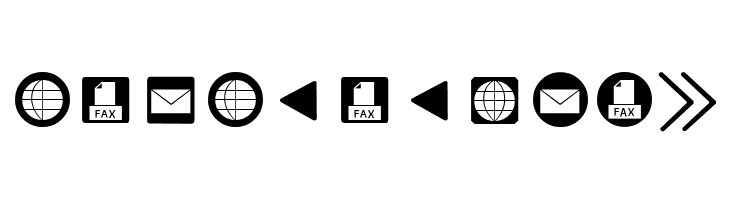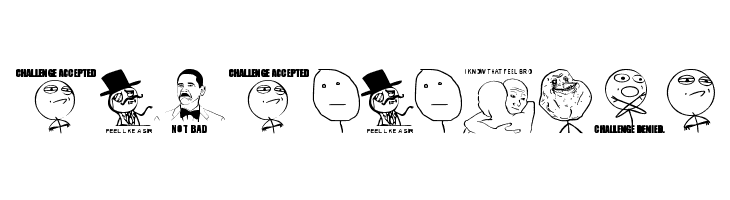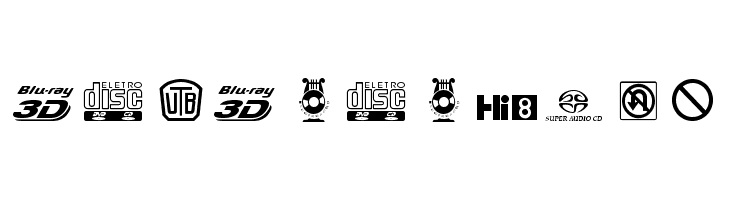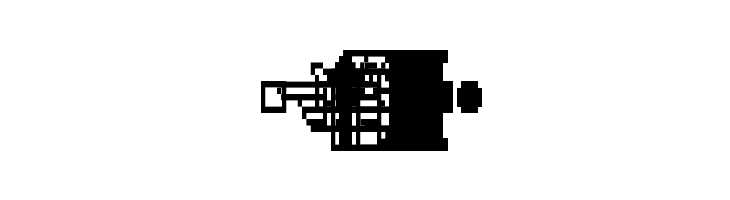
Bold, geometric icons ideal for user interfaces.
A meme-inspired decorative font using hand-drawn internet meme faces as glyphs.
A diverse set of iconic brand logos in their original typographic treatments.
Pixelated icon and symbol set with a mechanical and abstract theme.